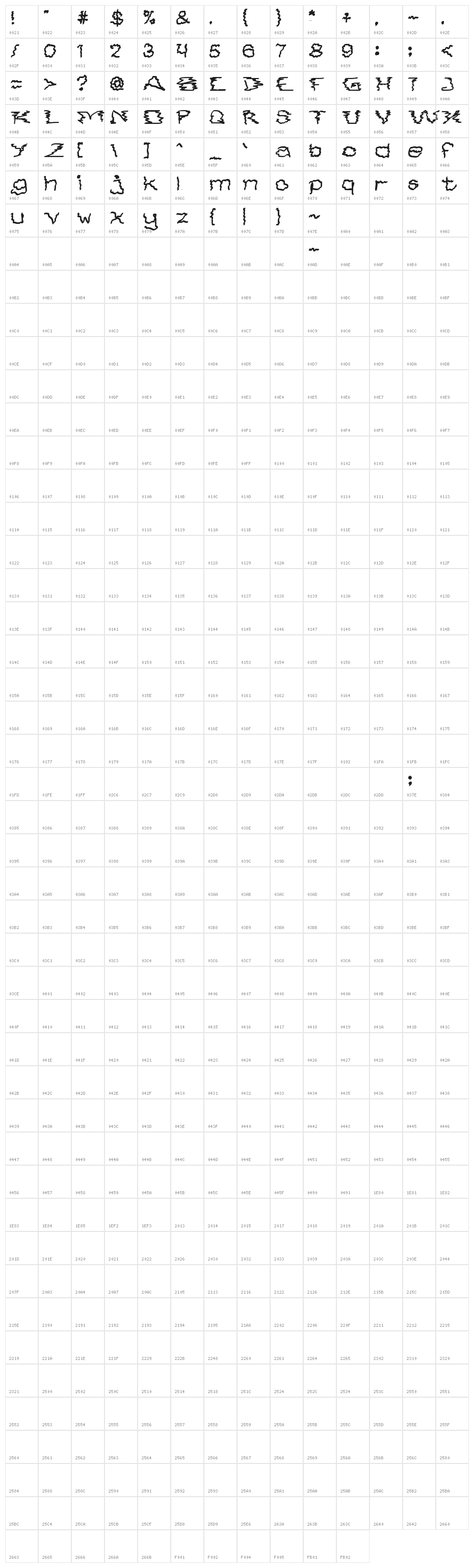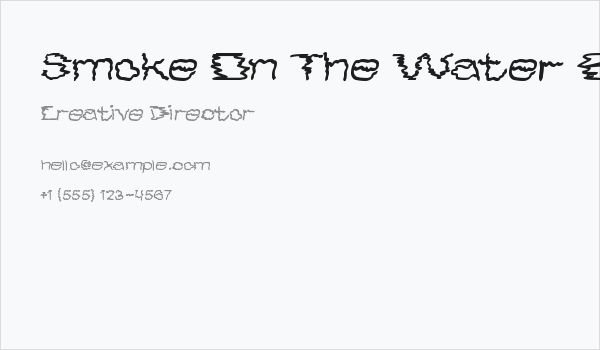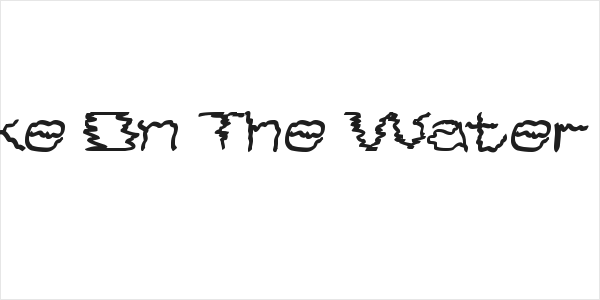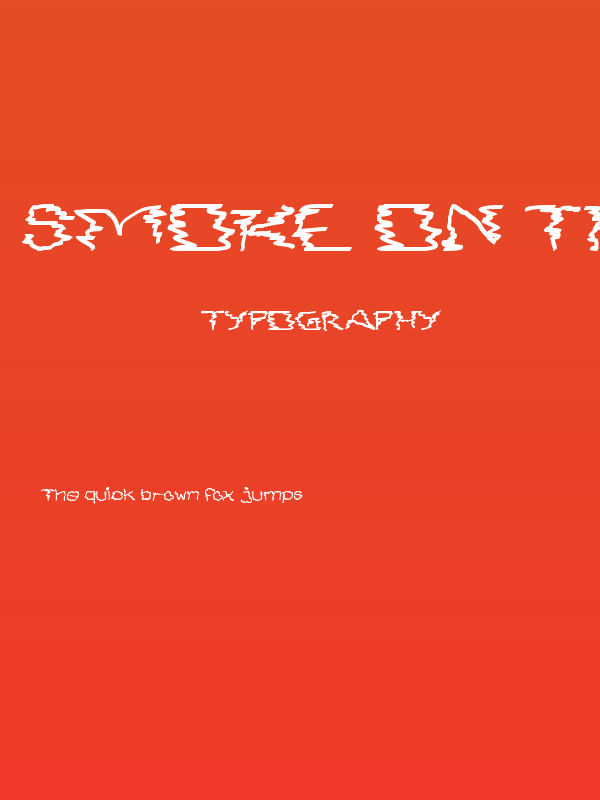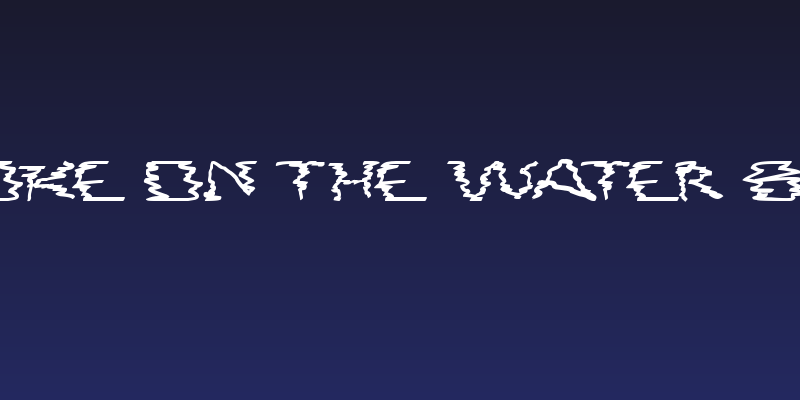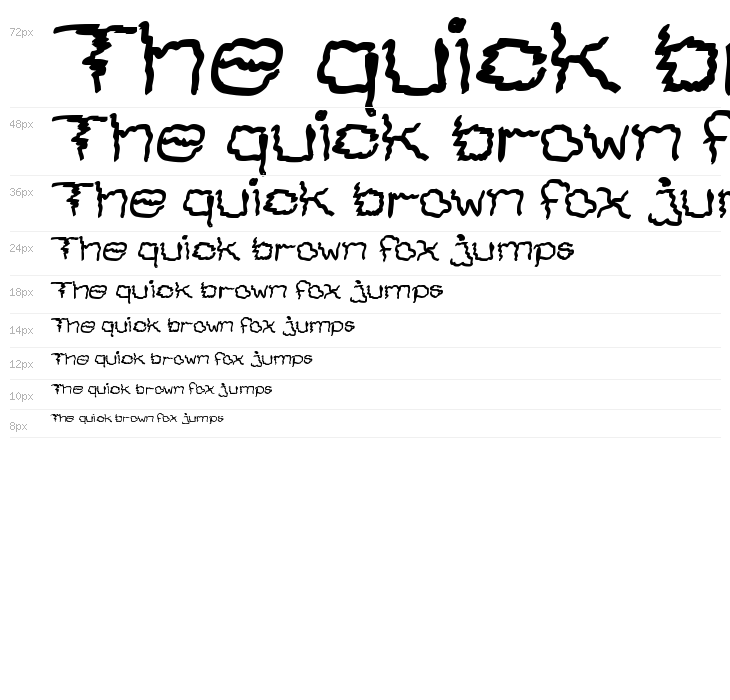
Smoke On The Water Bold Font
Smoke On The Water Bold Description
This font features a bold, jagged style reminiscent of smoke or flames, creating a dynamic and edgy appearance. The uppercase and lowercase letters maintain a consistent, irregular outline that gives a sense of movement and energy. The numbers and special characters follow the same design, ensuring a cohesive look across all elements. The font's unique style makes it stand out, with each character appearing as if it is in constant motion, adding a sense of urgency and excitement.
| Proposed Projects | Ideal for music album covers, event posters, or any project requiring a bold, energetic typeface. |